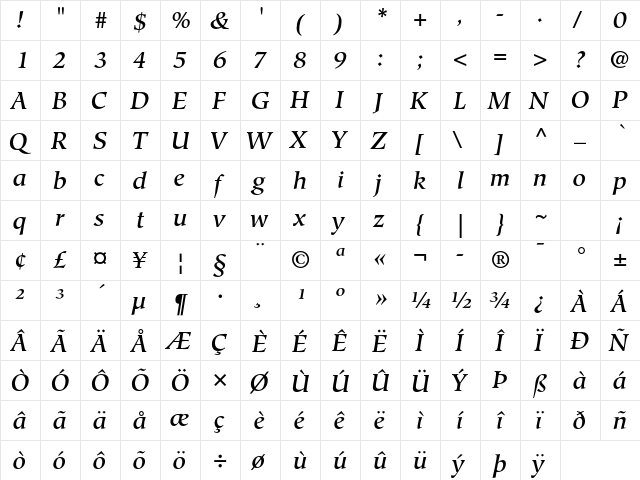
Hiroshige Std Medium Italic
Medium Italic ·  Cynthia Hollandsworth ·
Design Context for Hiroshige Std Typeface
Hiroshige Std is a composed and adaptable typeface that performs quietly and consistently across a wide range of design contexts. The slanted form adds forward momentum and visual energy.
Pro Tip: Use Hiroshige Std for emphasis, pull quotes, and subheadings where its slanted energy can add rhythm to the layout.